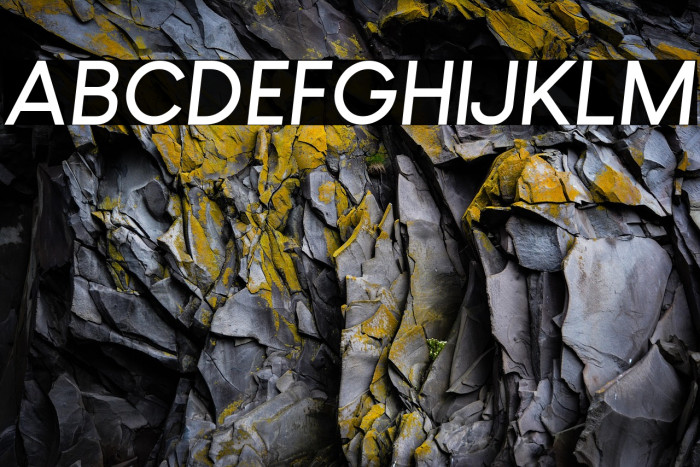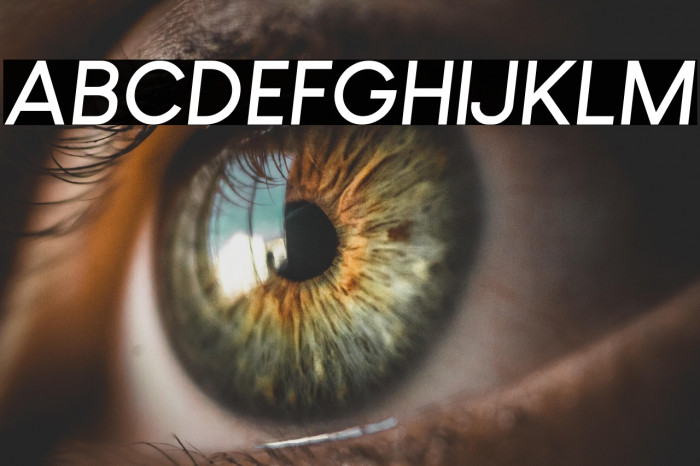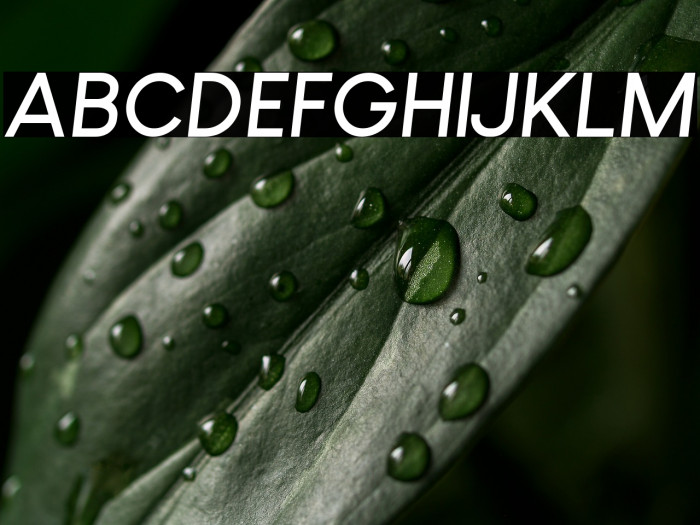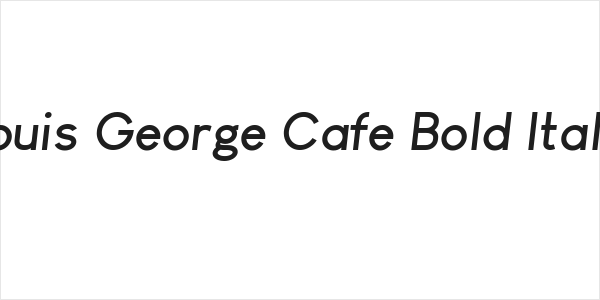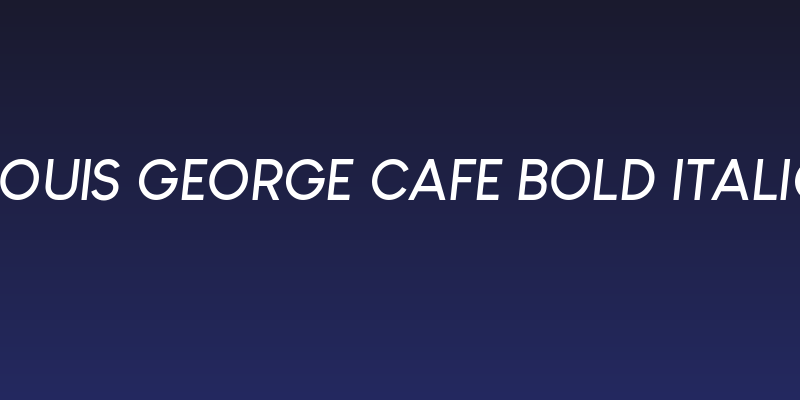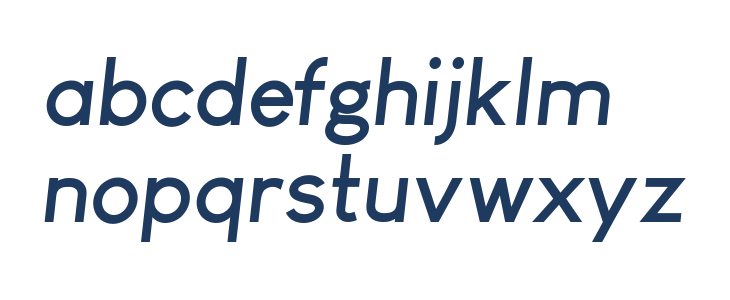
Louis George Cafe Bold Italic Font
Louis George Cafe Bold Italic Description
This font exhibits a modern and sleek design with a bold and italicized style. The characters are well-defined with smooth curves and clean lines, making it highly legible. The uppercase and lowercase letters maintain a consistent style, while the numbers and special characters are designed to complement the overall aesthetic. The font's bold weight and italic slant add a dynamic and energetic feel, suitable for various design applications.
| Proposed Projects | Ideal for branding, advertising, and editorial design projects where a bold and modern look is desired. |